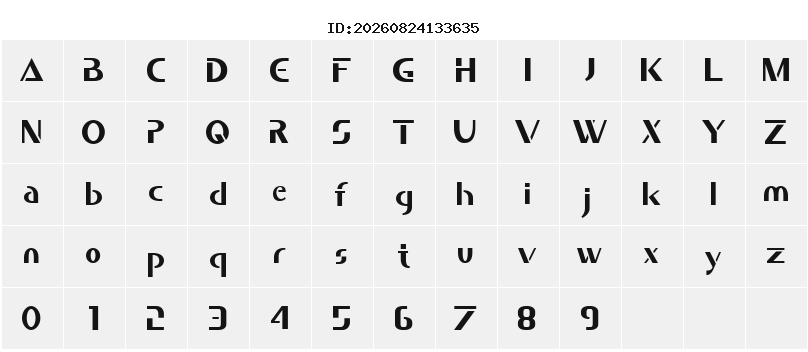
Saber Preview
• Font Name: Saber
About Saber.ttf
Saber.ttf is a modern, elegant sans-serif font designed for ultimate readability and visual harmony. Perfect for branding, headlines, web design, and print materials.